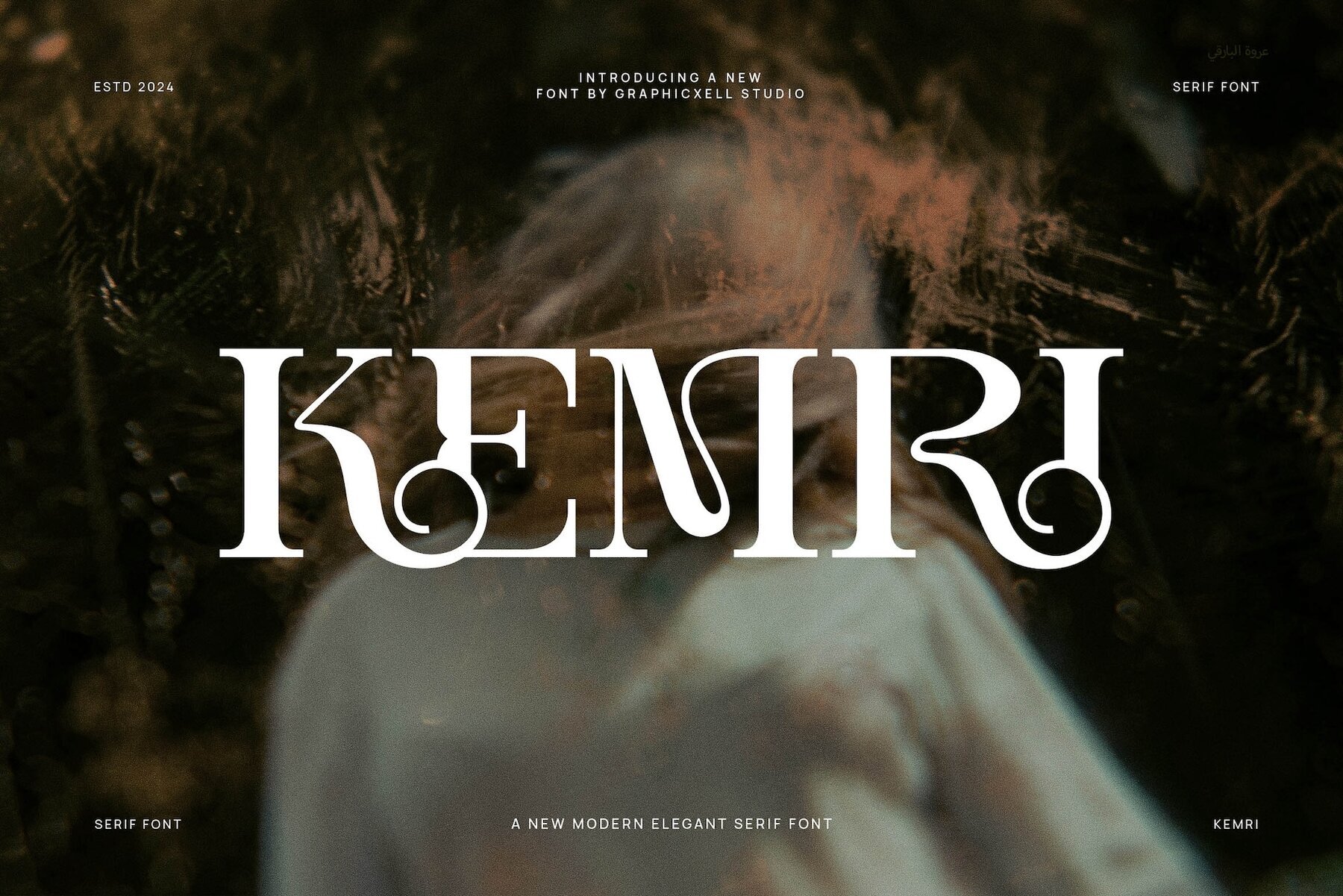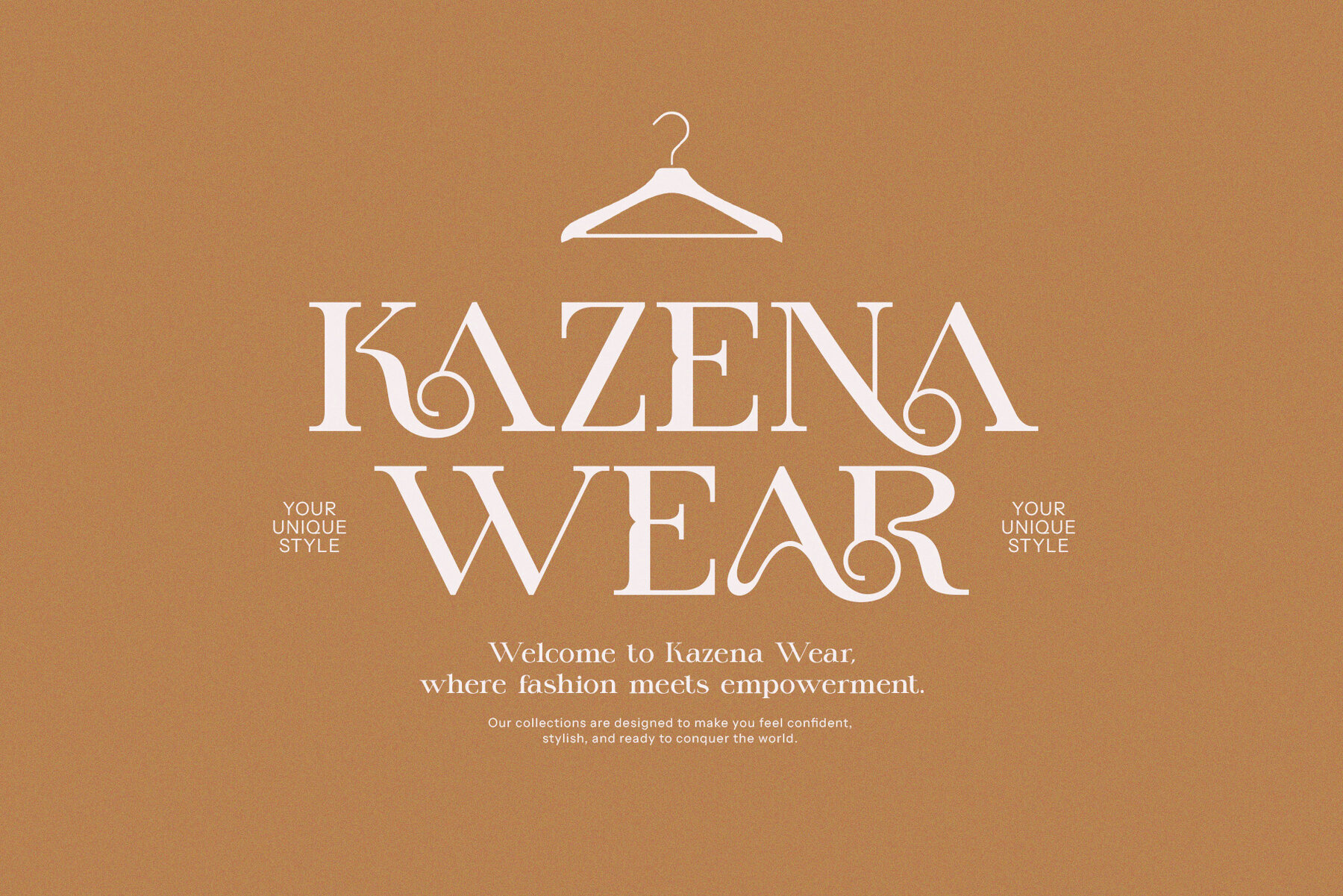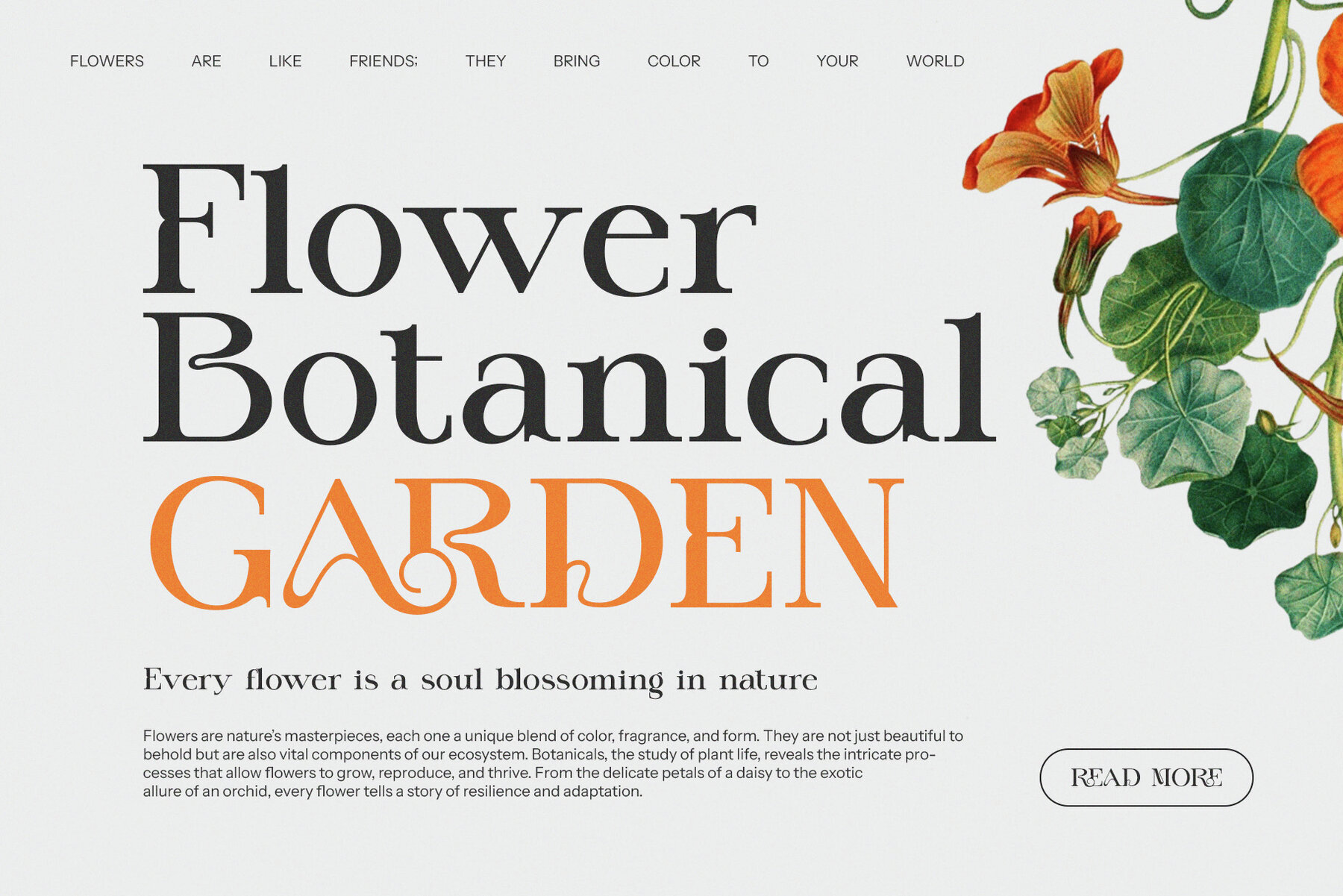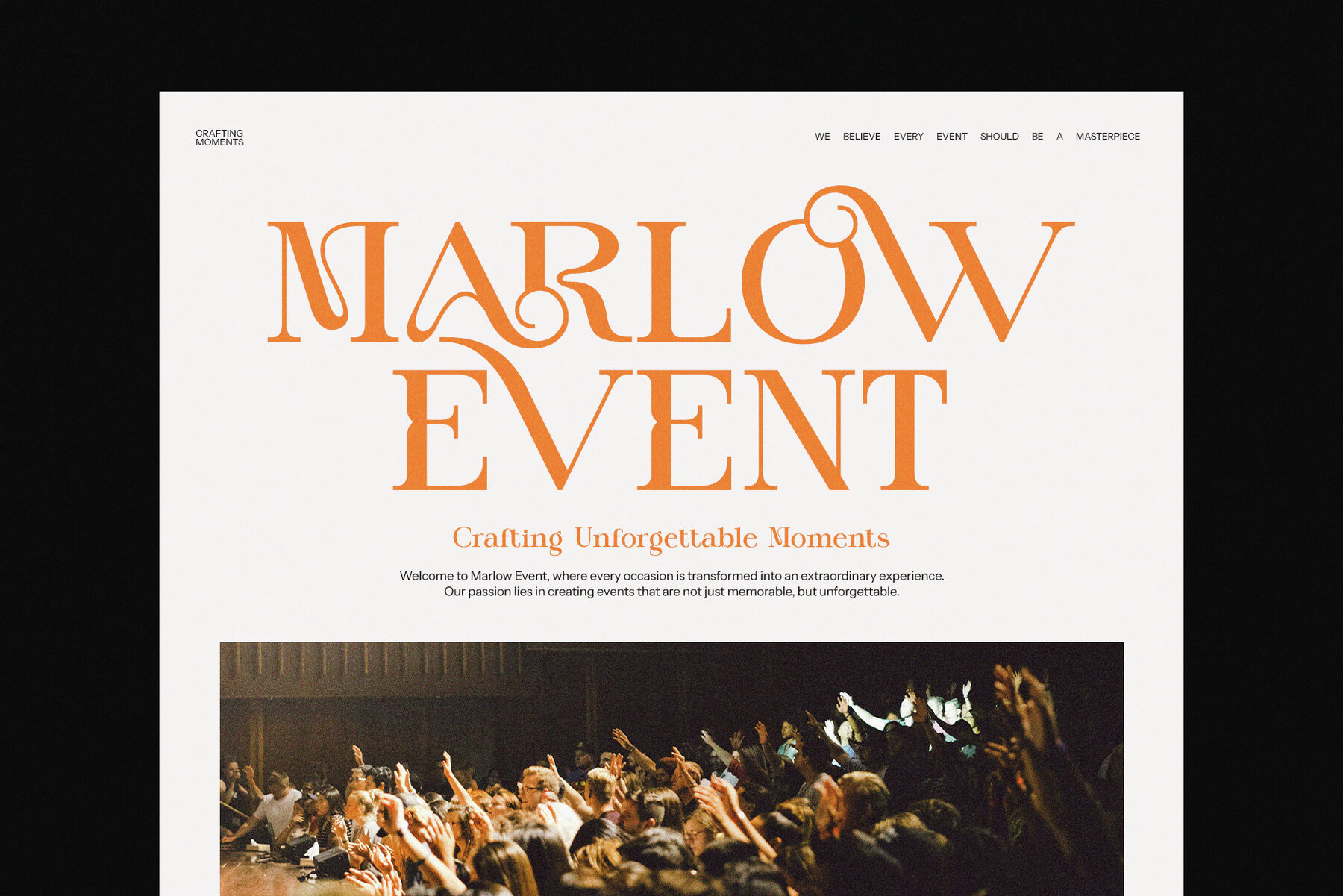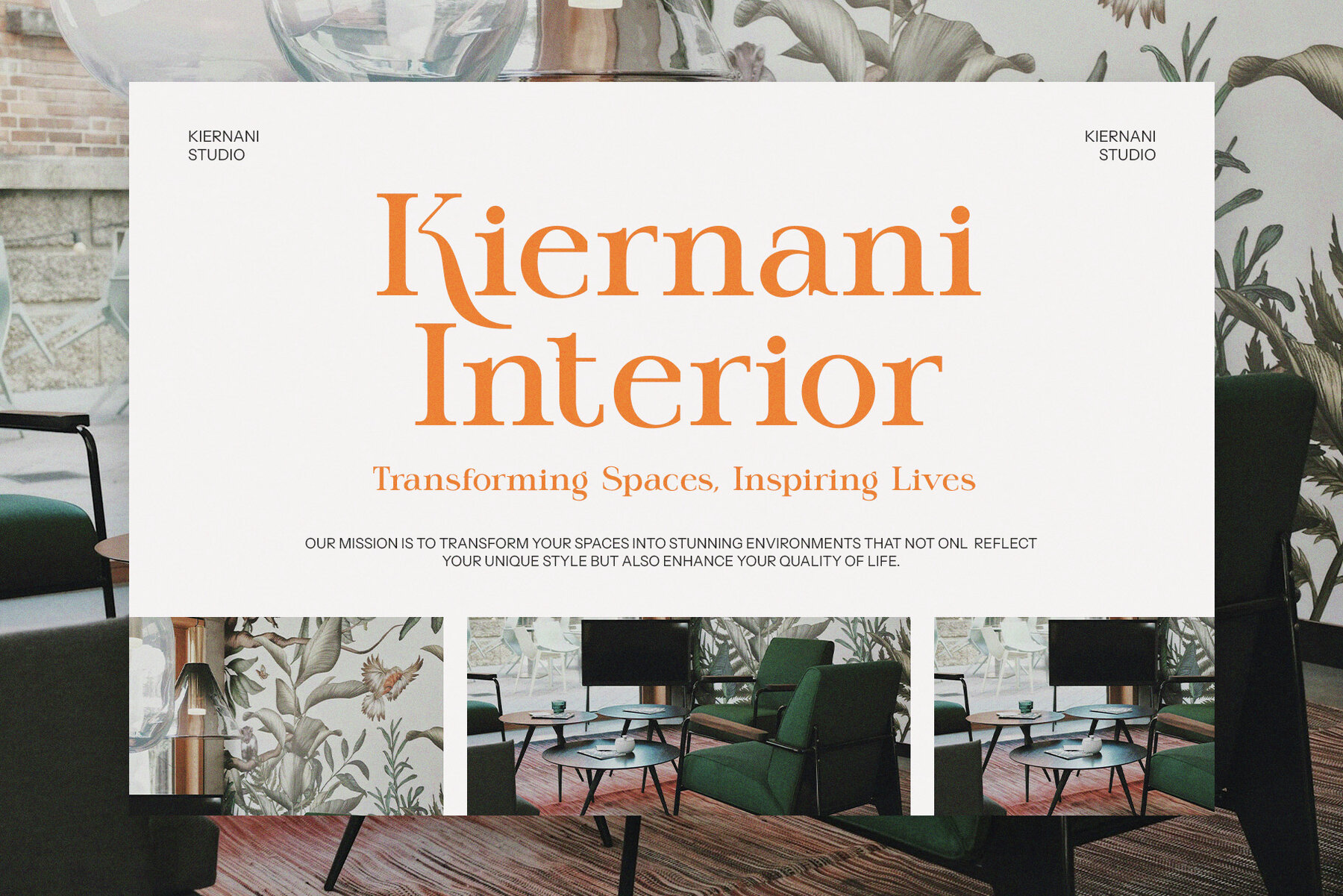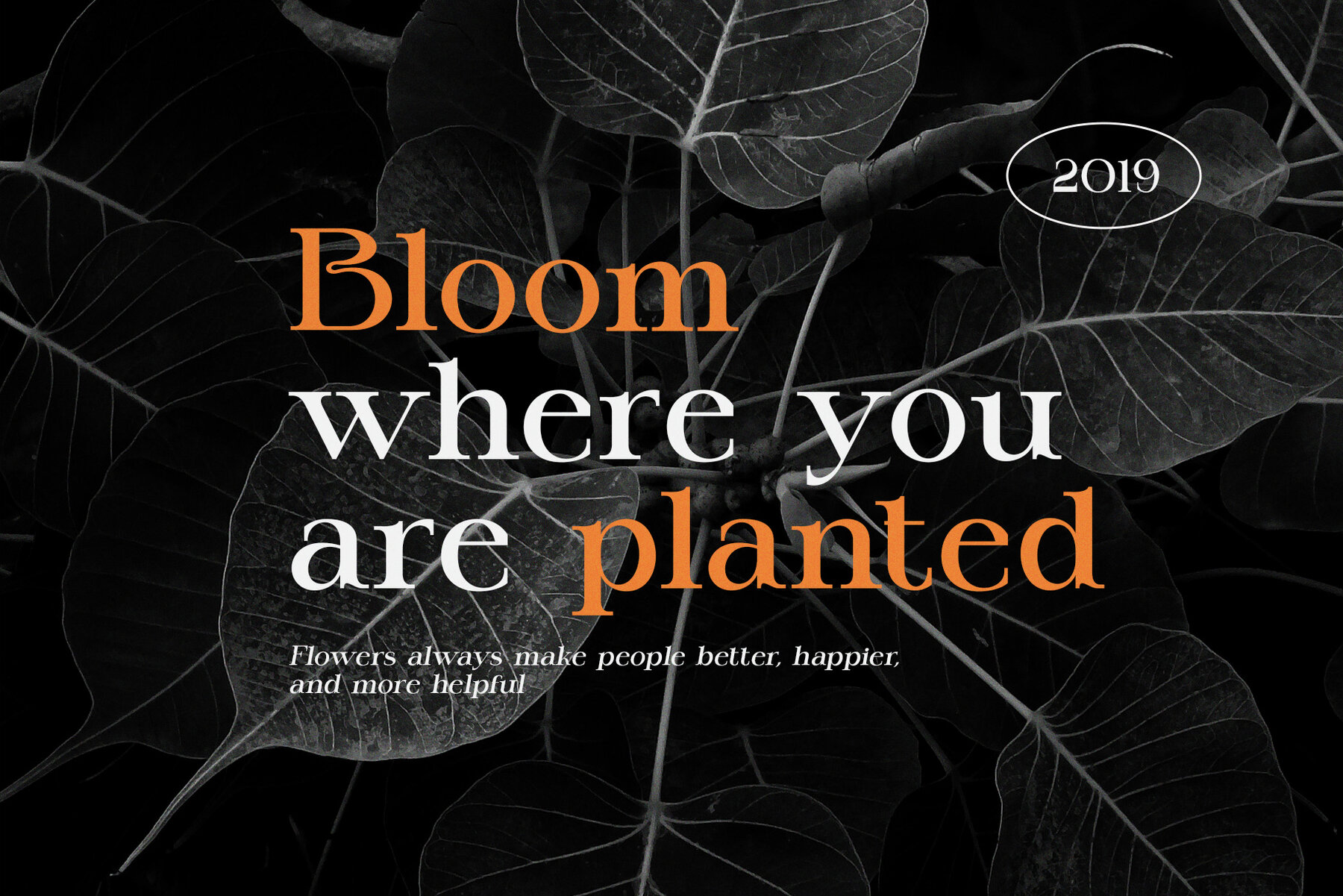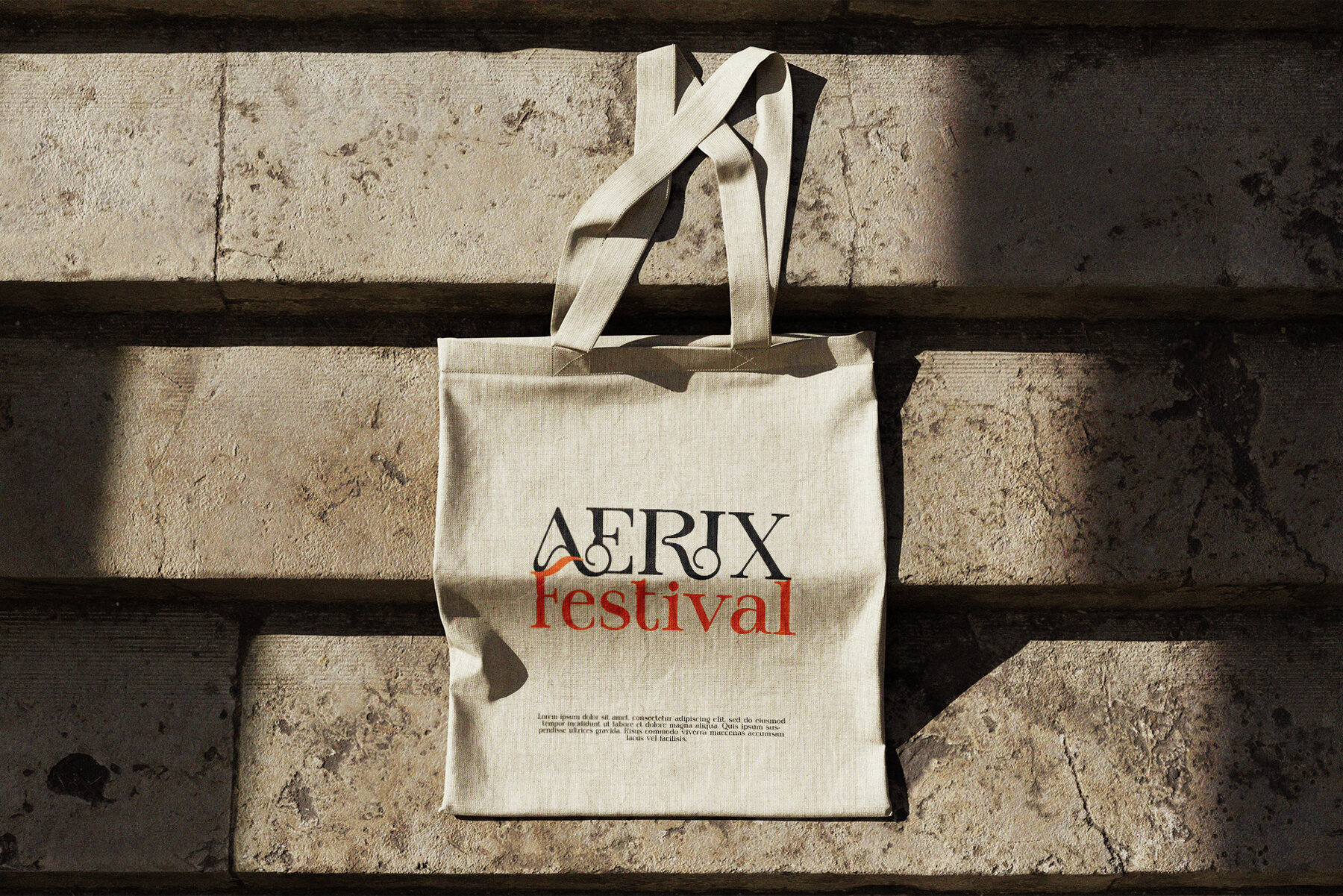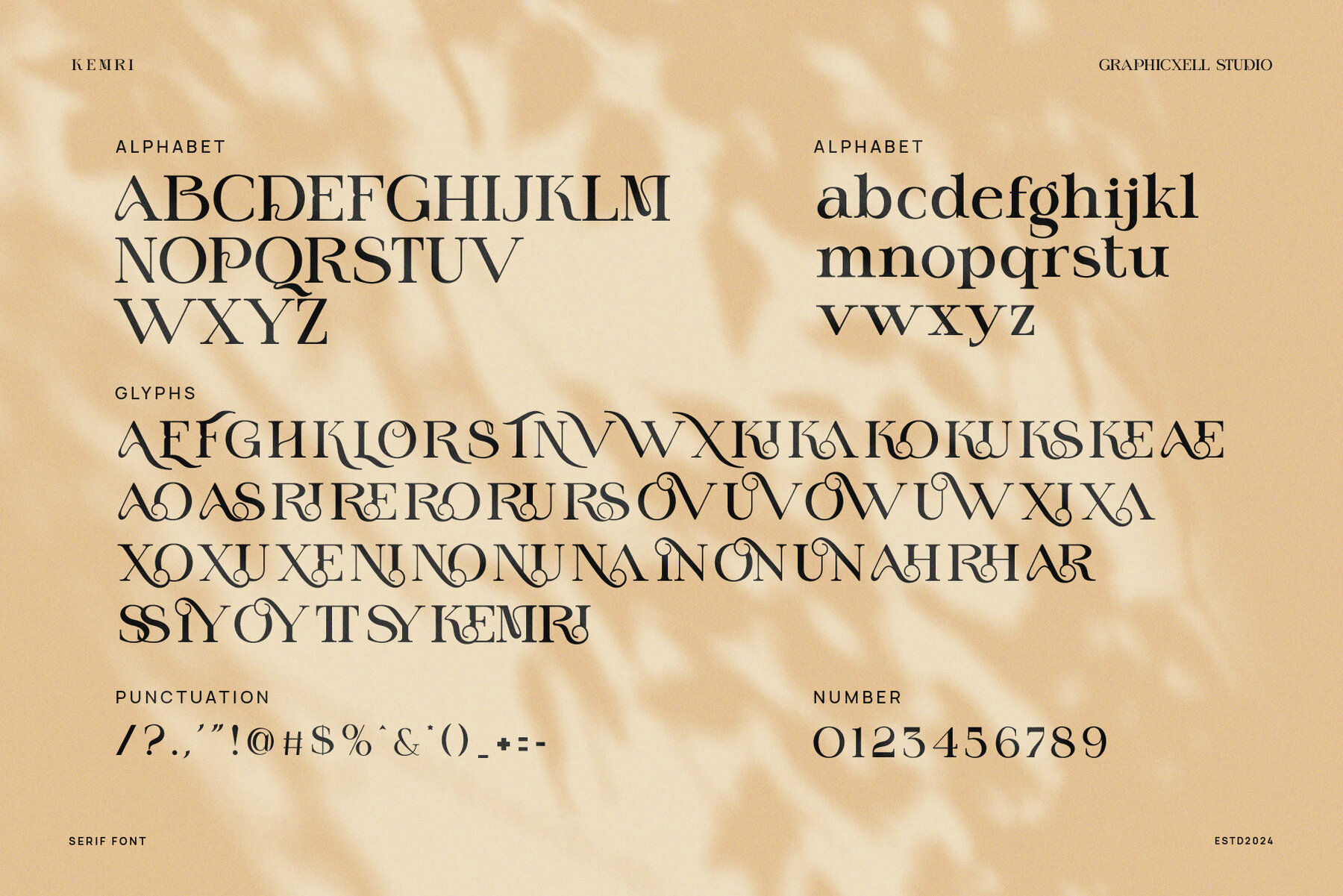
Kemri Font
Kemri
Kemri Elegant Serif is a refined typeface that brings a timeless charm to any creative project. With graceful letterforms, delicate curves, and exquisite ligatures, Kemri seamlessly blends modern luxury with classic elegance. It's the perfect choice for enhancing logos, branding, websites, editorial layouts, product packaging, and high-end marketing materials. Whether designing for fashion, beauty, lifestyle, or gourmet brands, Kemri delivers a polished and professional aesthetic.
One of Kemri's standout features is its beautifully crafted ligatures and alternates, enhancing text flow with a unique artistic flair. These thoughtful details lend an effortlessly stylish and refined touch to any composition. Its versatility allows Kemri to excel in both minimalist designs and bold, statement-making layouts. The font's high-contrast strokes and elegant proportions create a striking visual impact, making it ideal for headlines, invitations, luxury branding, and magazine spreads. Kemri ensures readability while exuding sophistication, making it an essential choice for designers seeking a timeless yet contemporary serif font.